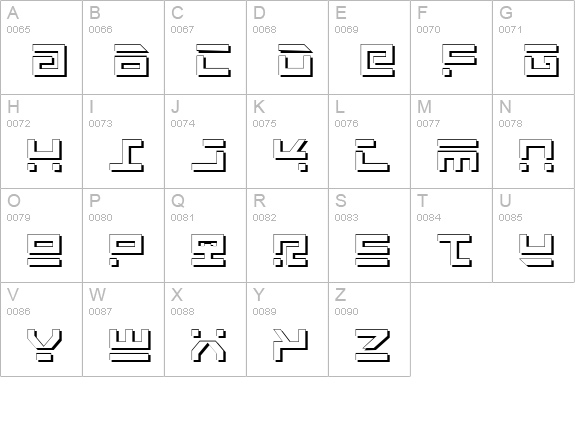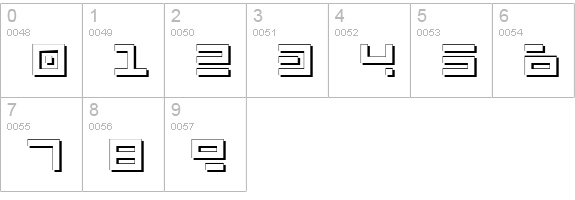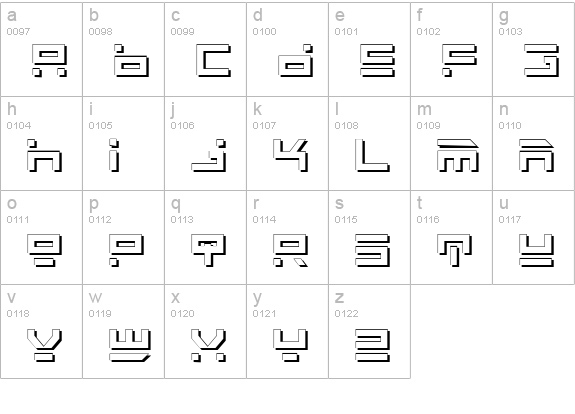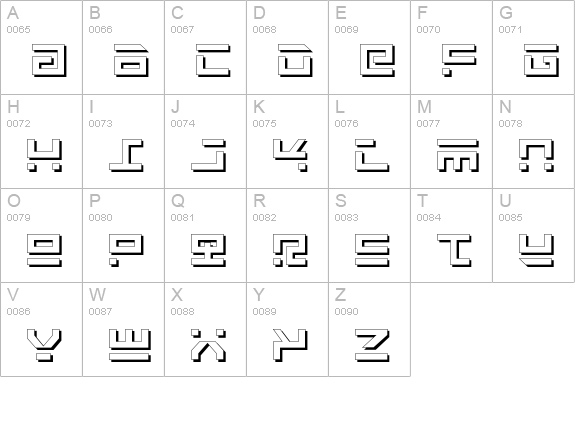
Introducing Rocket Type Shadow font, a sleek and modern typeface that exudes confidence and sophistication. With its sharp edges and bold letterforms, this font is perfect for making a statement in your design projects. The unique shadow effect adds depth and dimension, creating a striking visual impact. What sets Rocket Type Shadow font apart is not only its stylish design but also the fact that it is available for free download at FontsMarket.com. Whether you're working on branding, advertising, or any other creative endeavor, this versatile font will elevate your work to the next level. Embrace the power of Rocket Type Shadow font and let your designs soar to new heights.